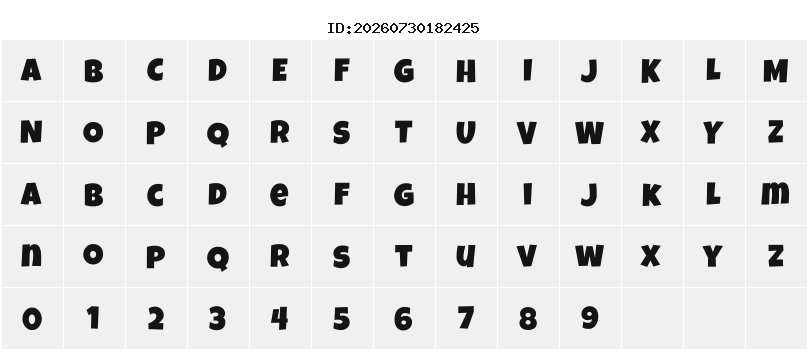
Luckiest Guy Preview
• Font Name: Luckiest Guy
• Full Font Name: Luckiest Guy
• Designer: Astigmatic (AOETI)
• Manufacturer: Astigmatic (AOETI)
About Luckiest Guy.ttf
Luckiest Guy.ttf is a modern, elegant sans-serif font designed for ultimate readability and visual harmony. Perfect for branding, headlines, web design, and print materials.